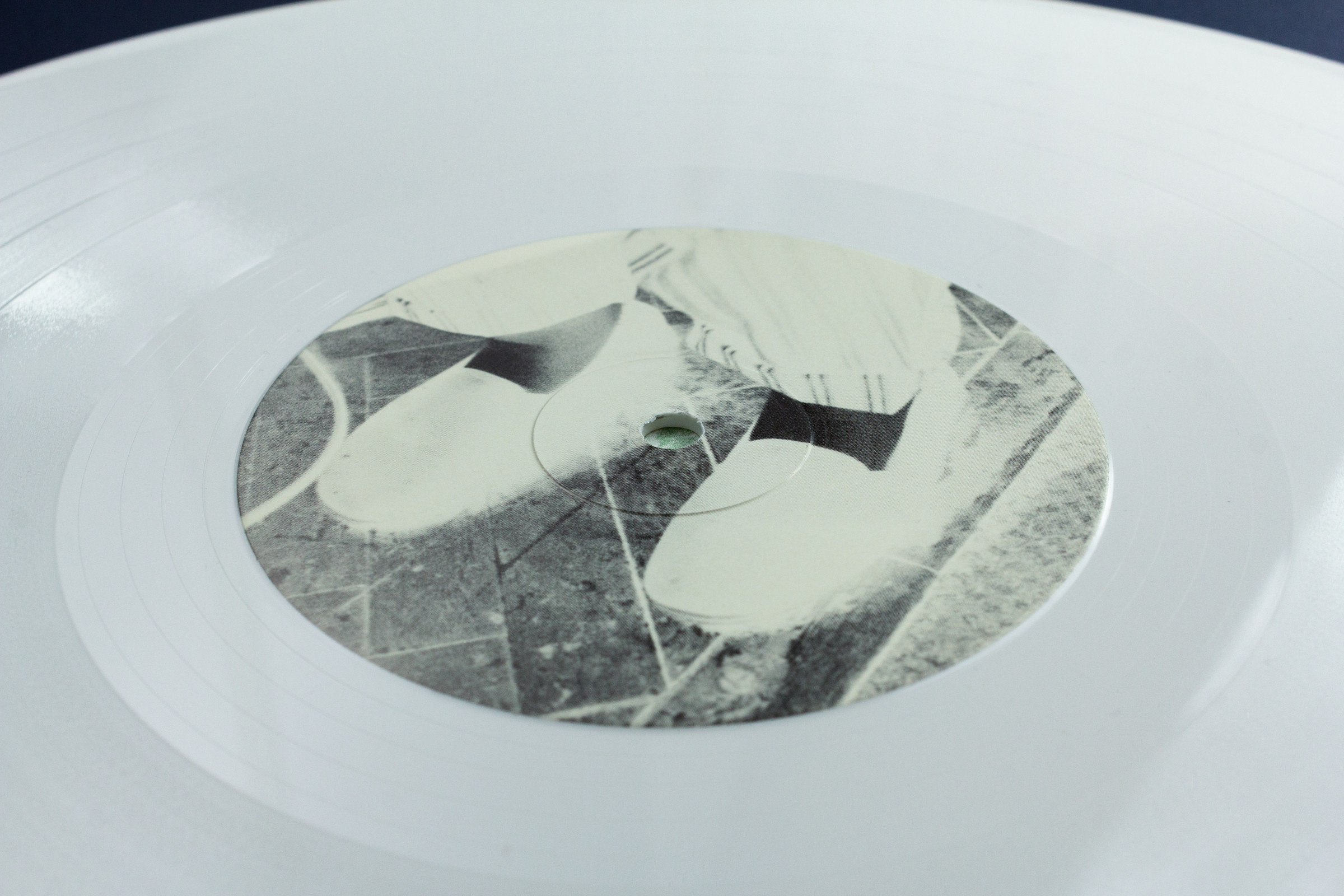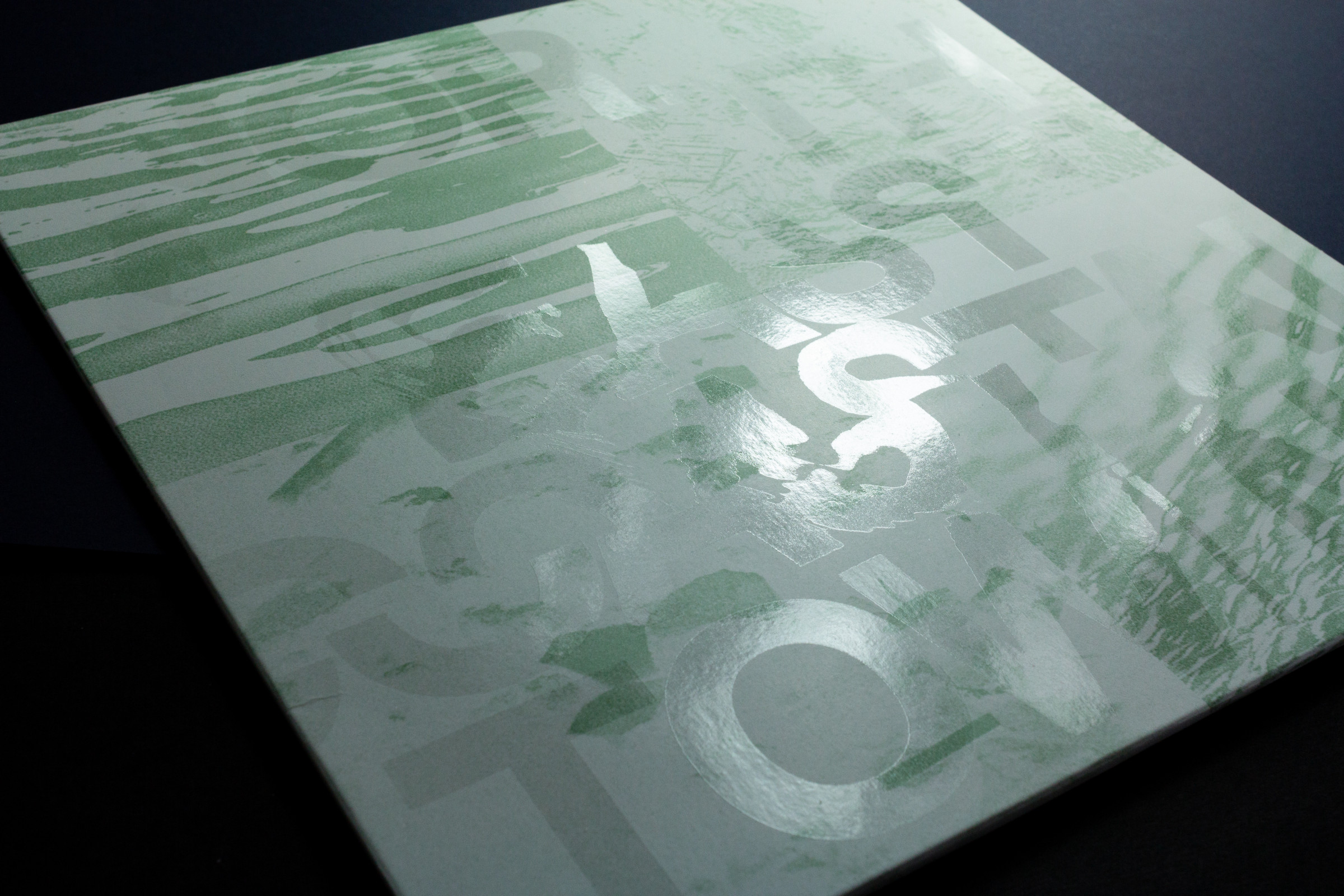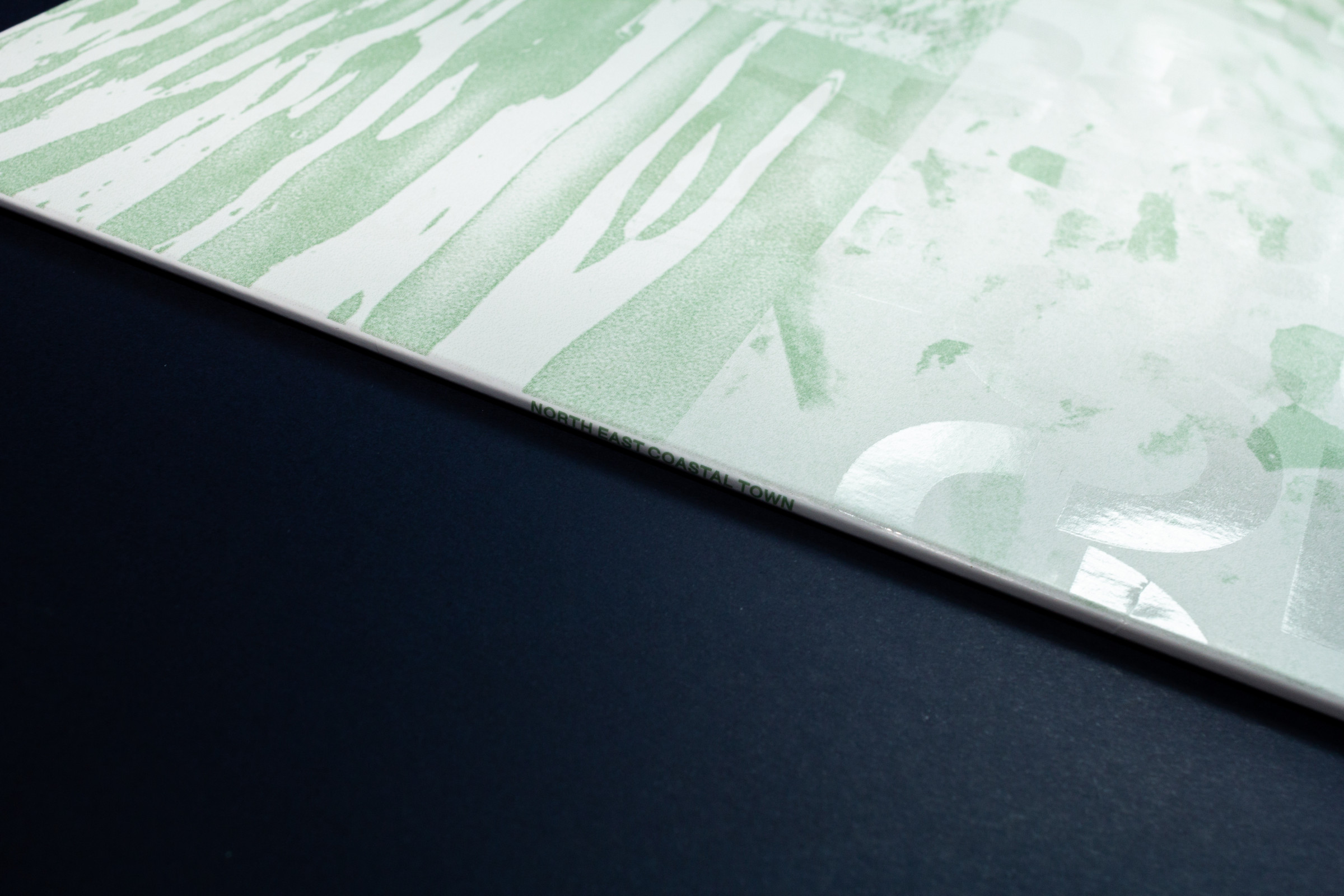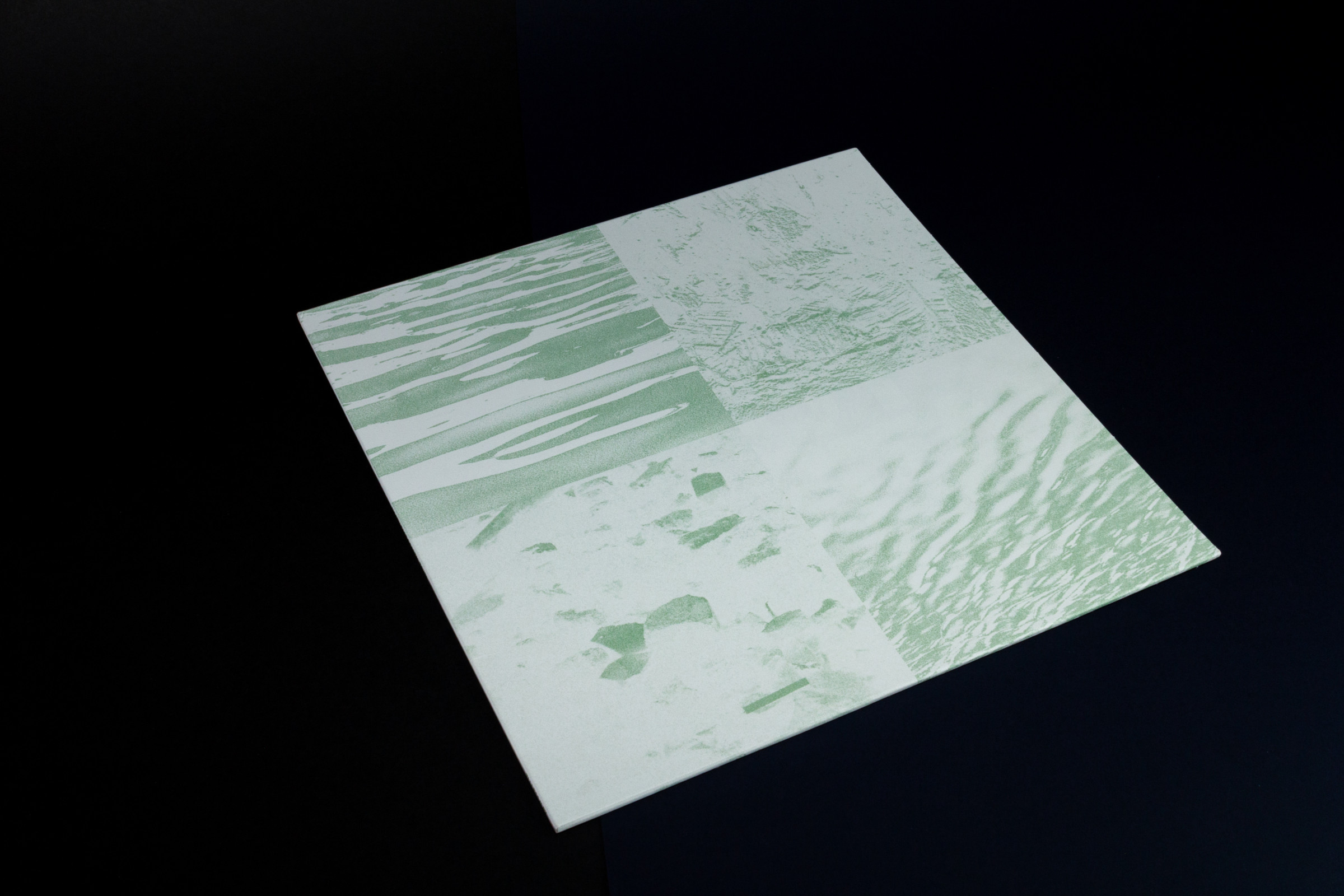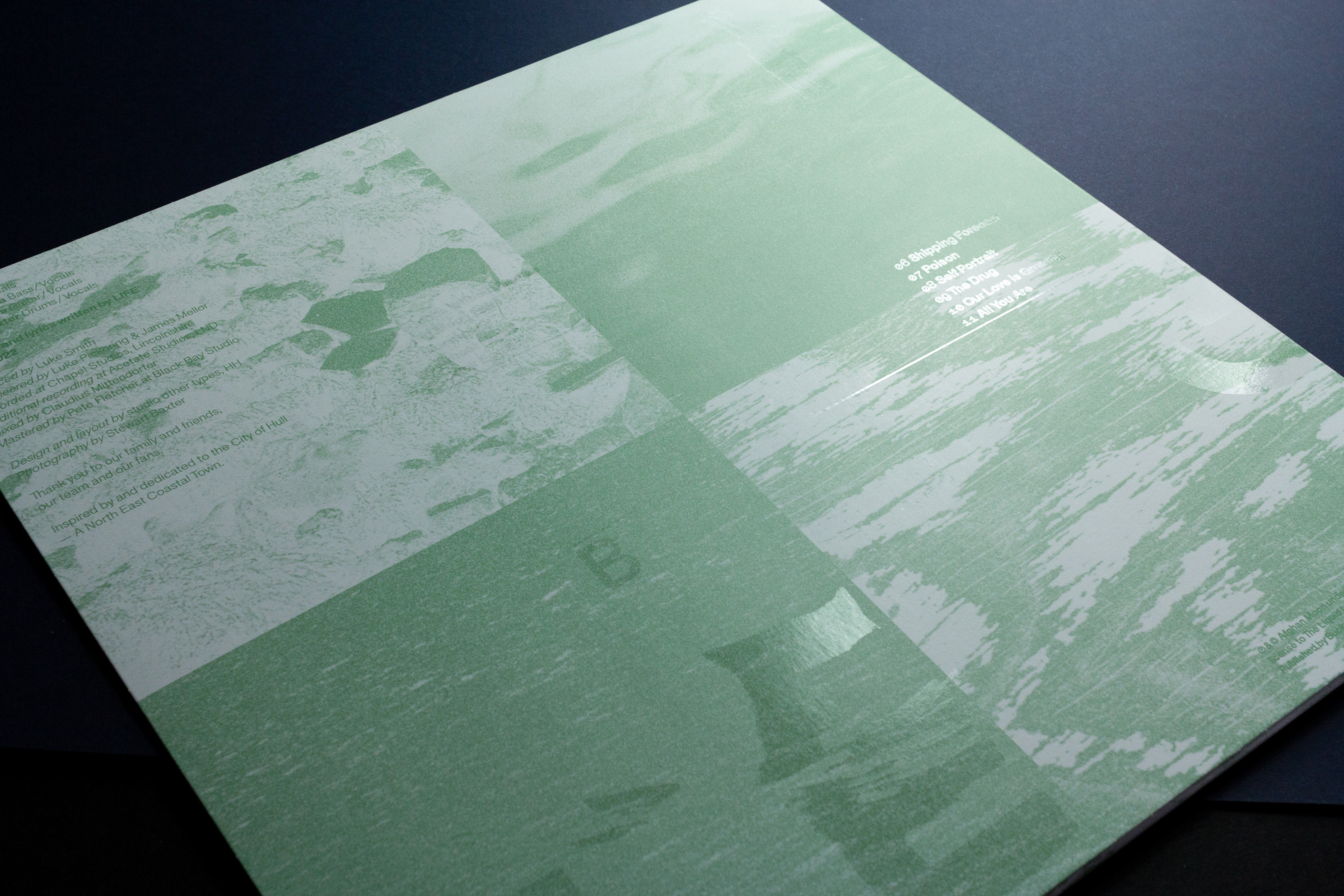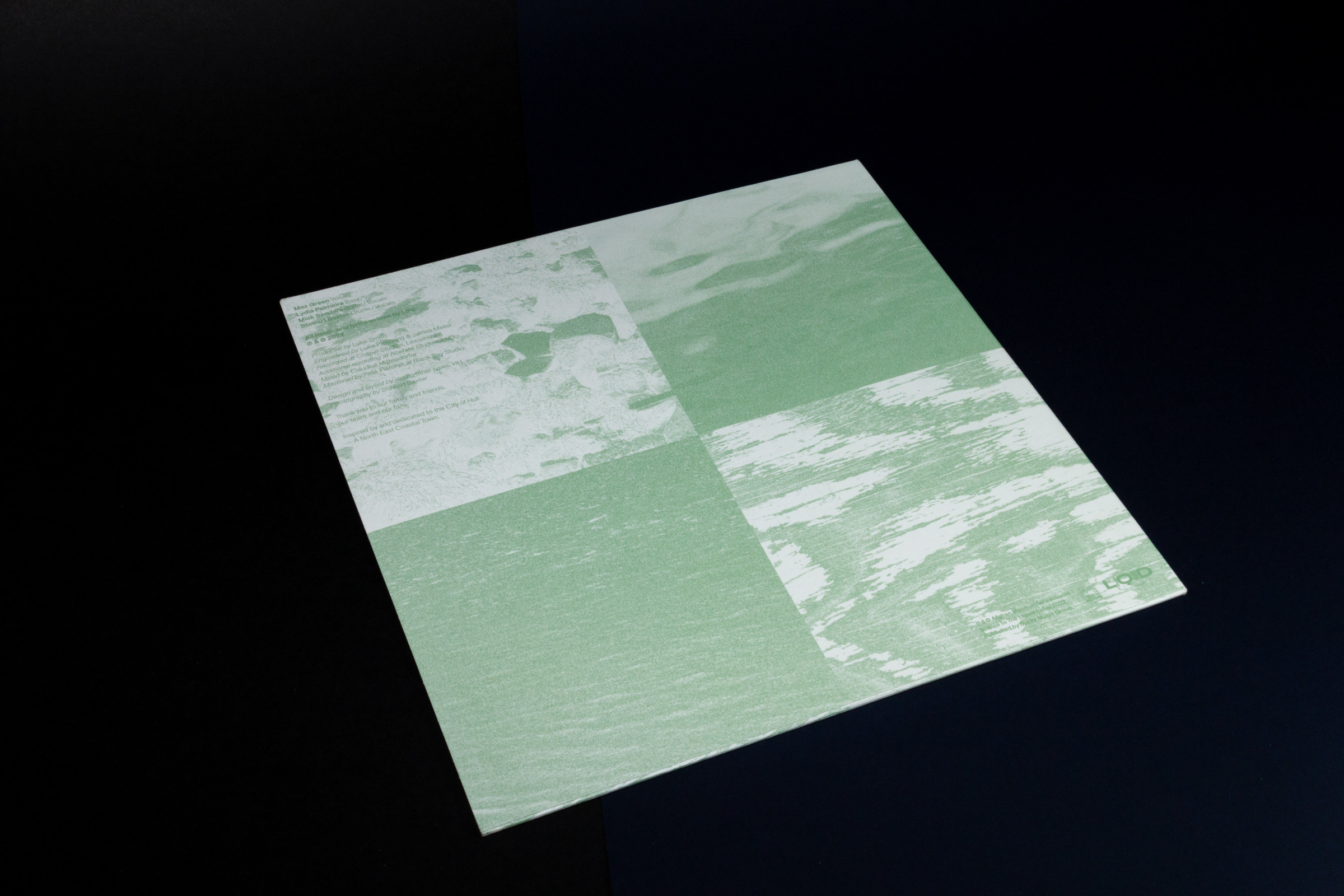
North East Coastal Town – dinked edition
LIFE is a post-punk band from Hull, England. The album musically and lyrically explores a sense of belonging and relationship to their hometown. Water proved to be a unifying element for the band members, and we translated this element into our design. The album cover was created in an analog way by cutting letters, rearranging them, distorting them with water, and then photographically capturing the result. Abstracted images of the harbor in Hull are seen on the special edition. The typographic design is printed on top with clear UV-varnish to create the effect of water.
Typeface: Default Sans by Scott Vander Zee